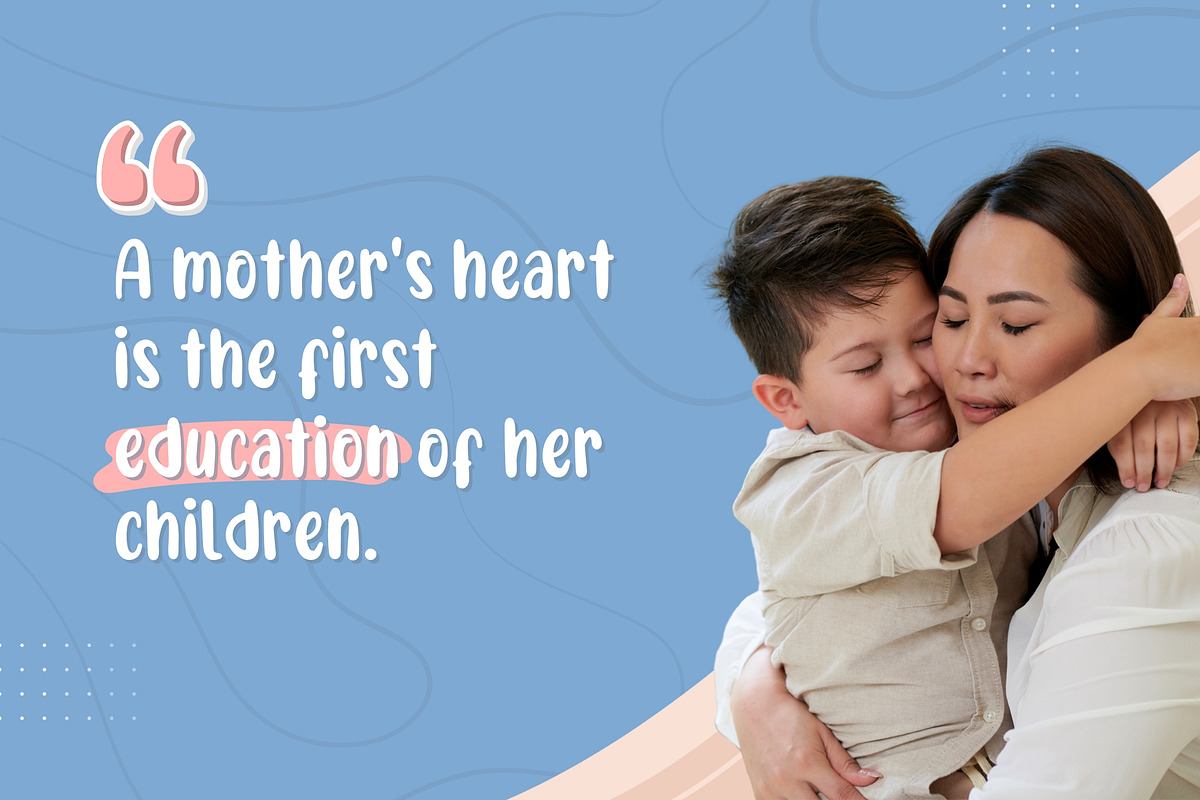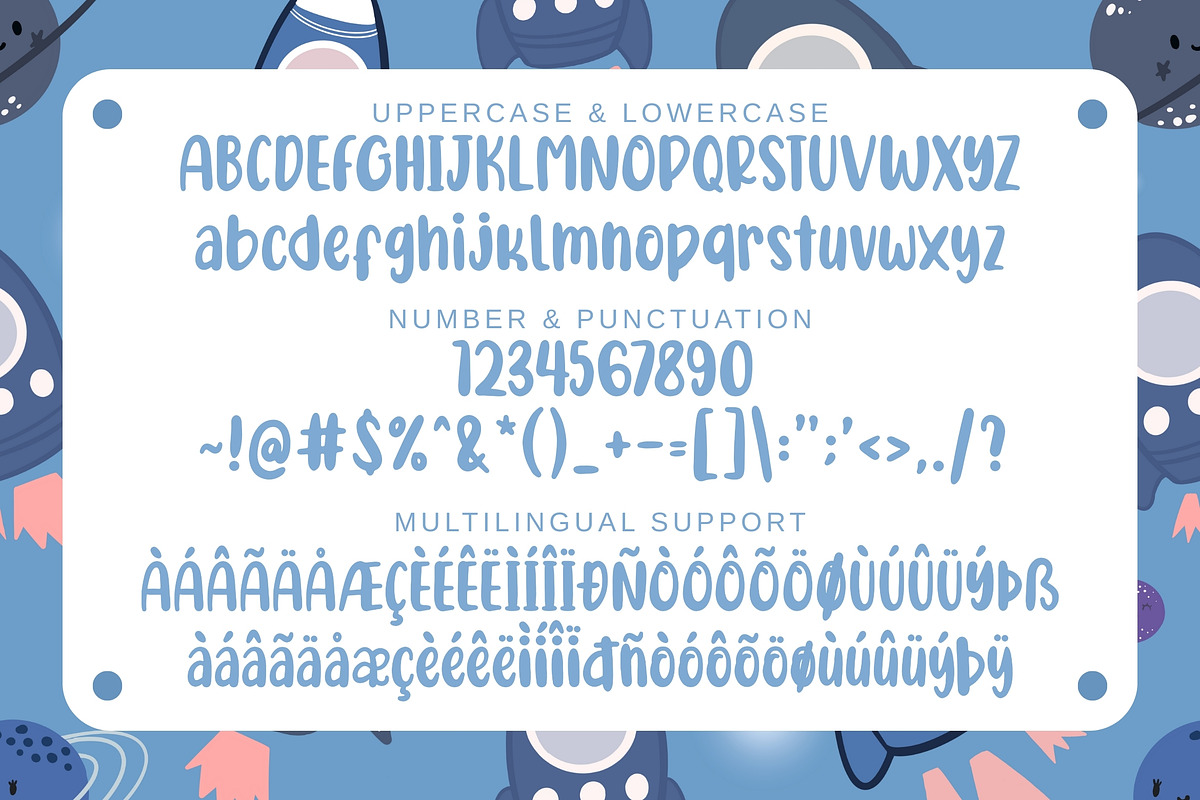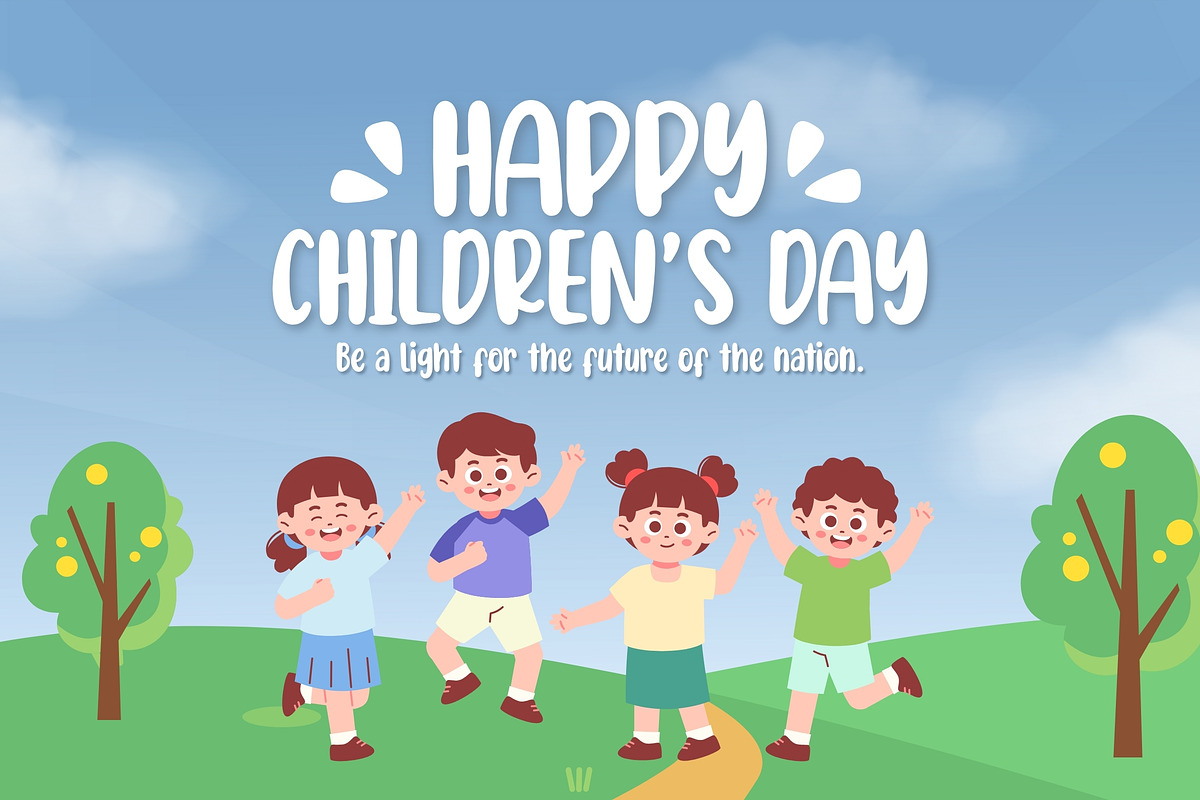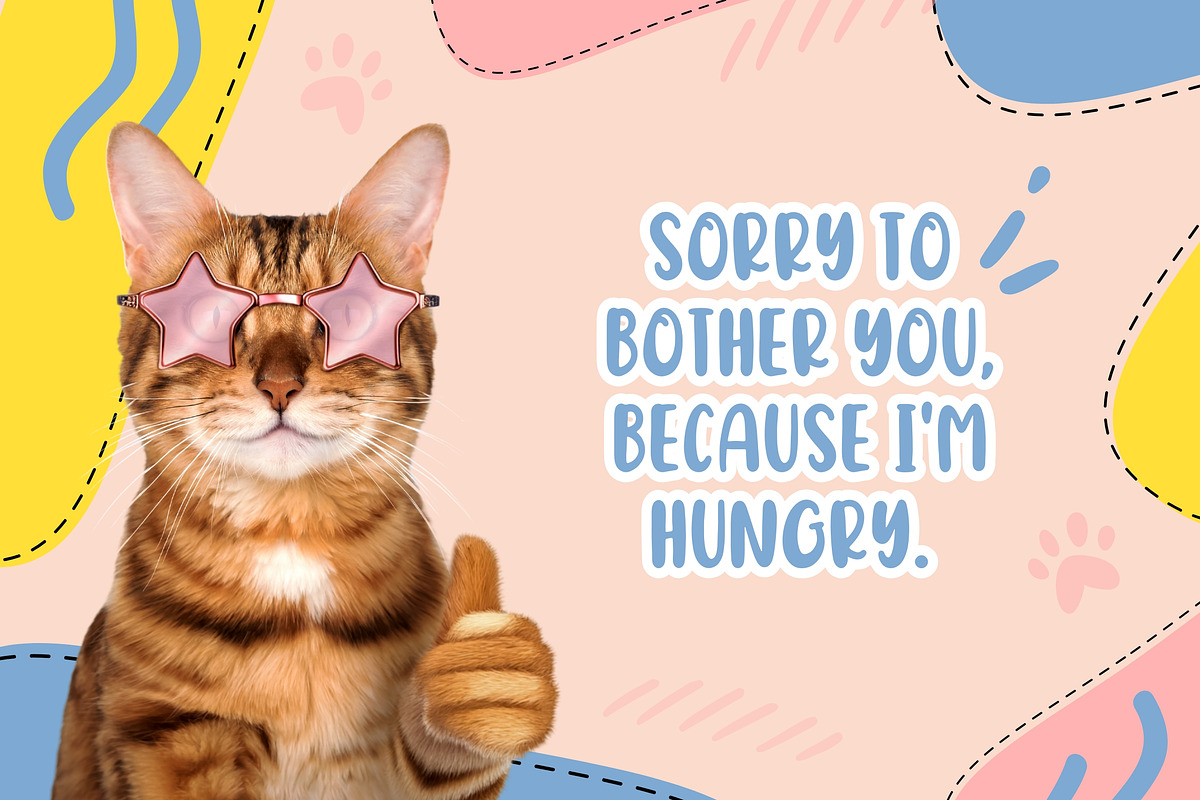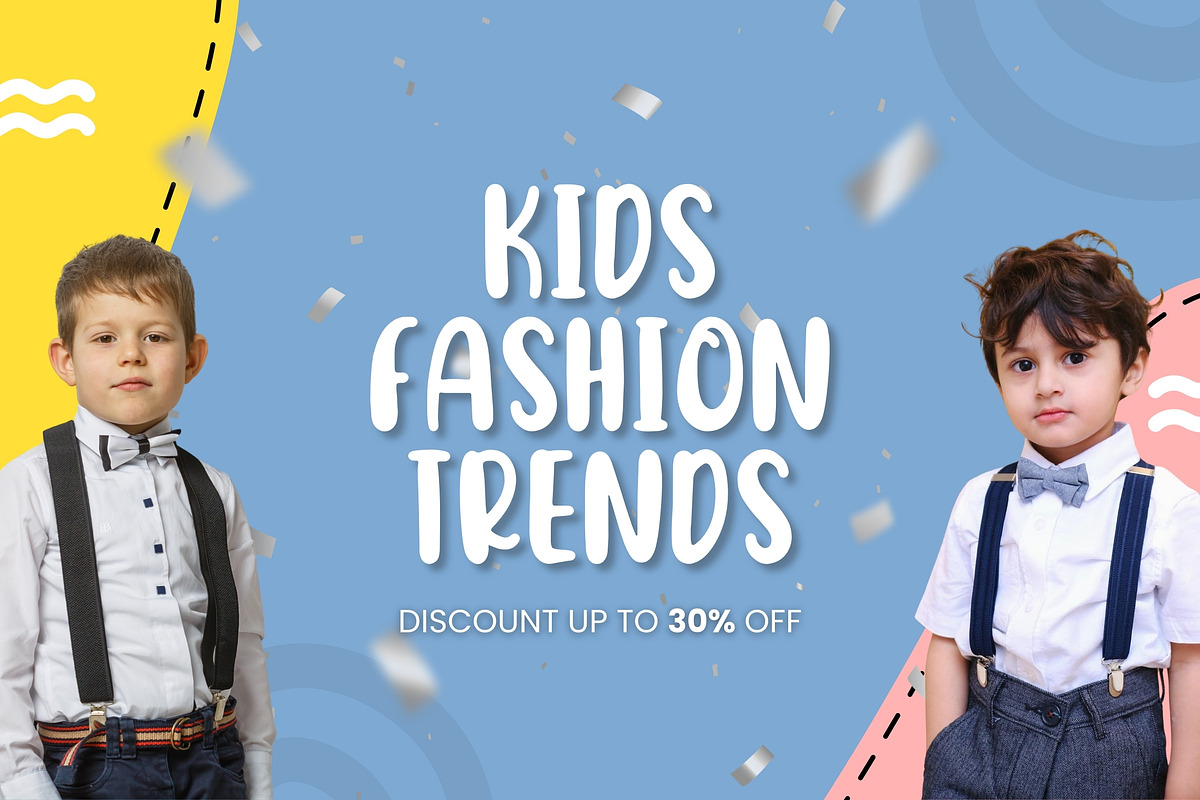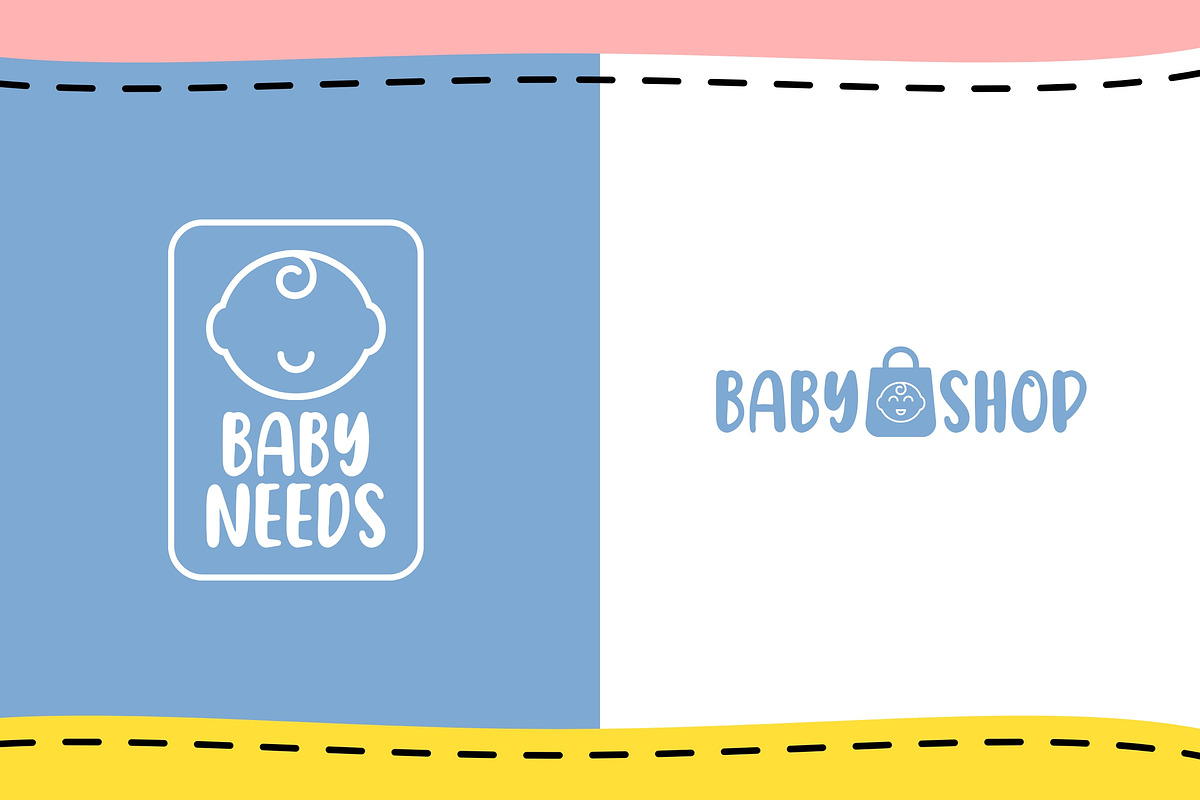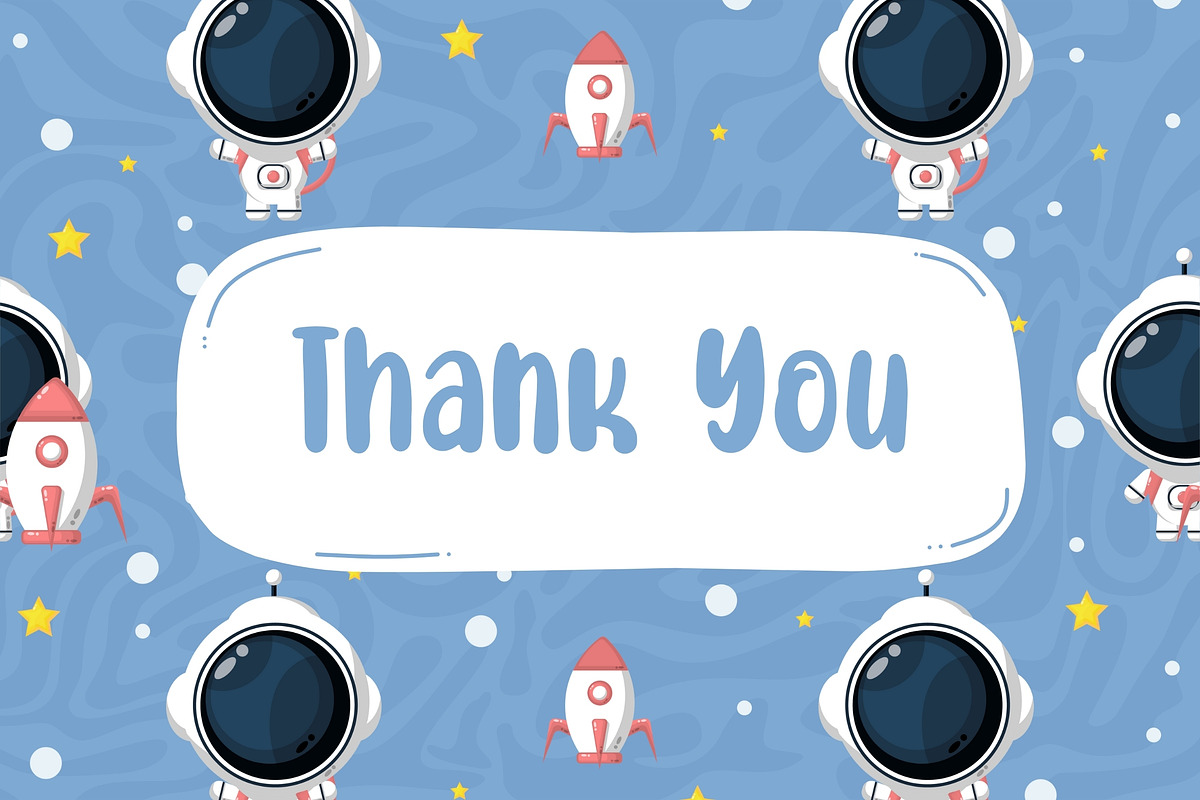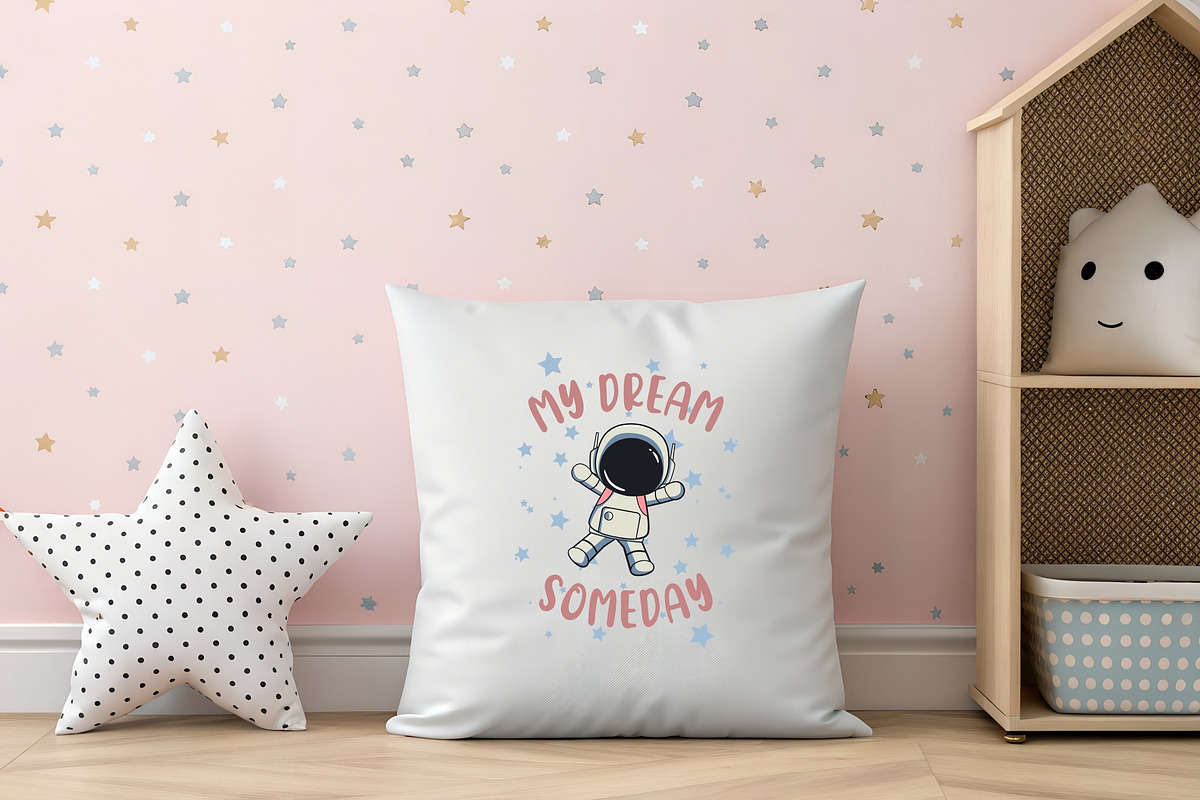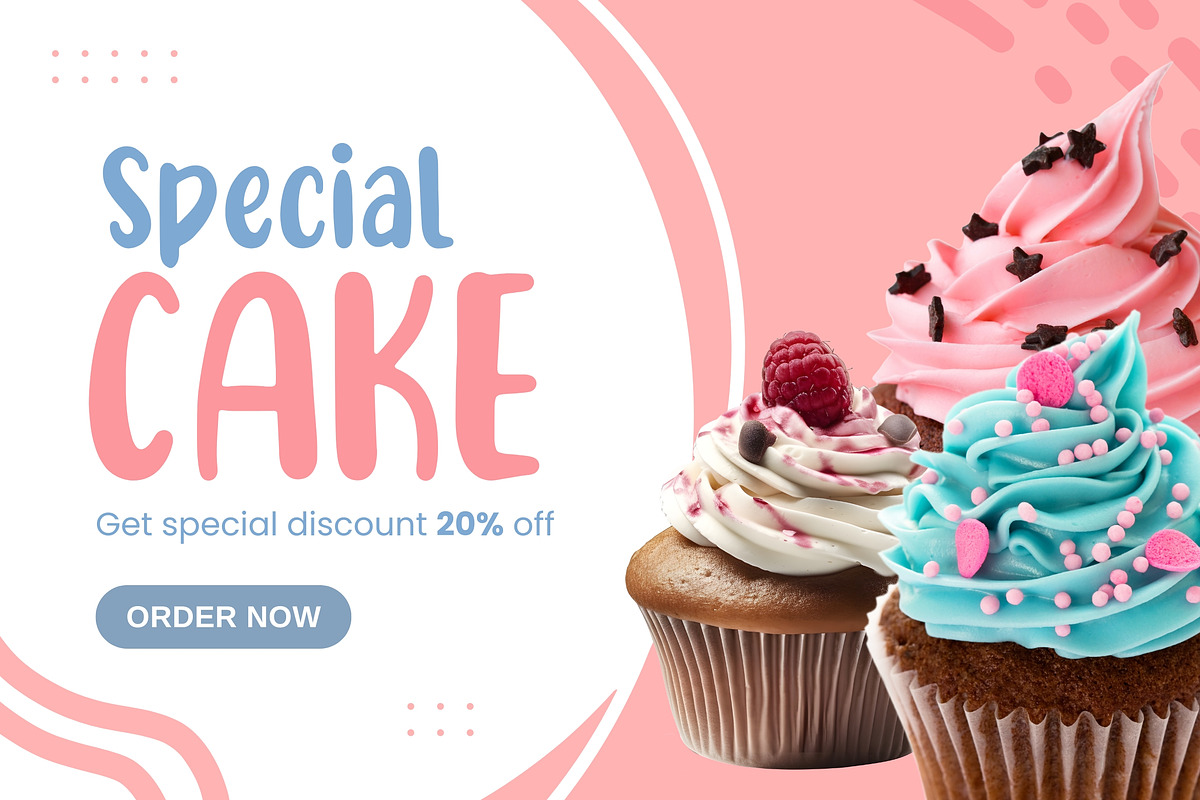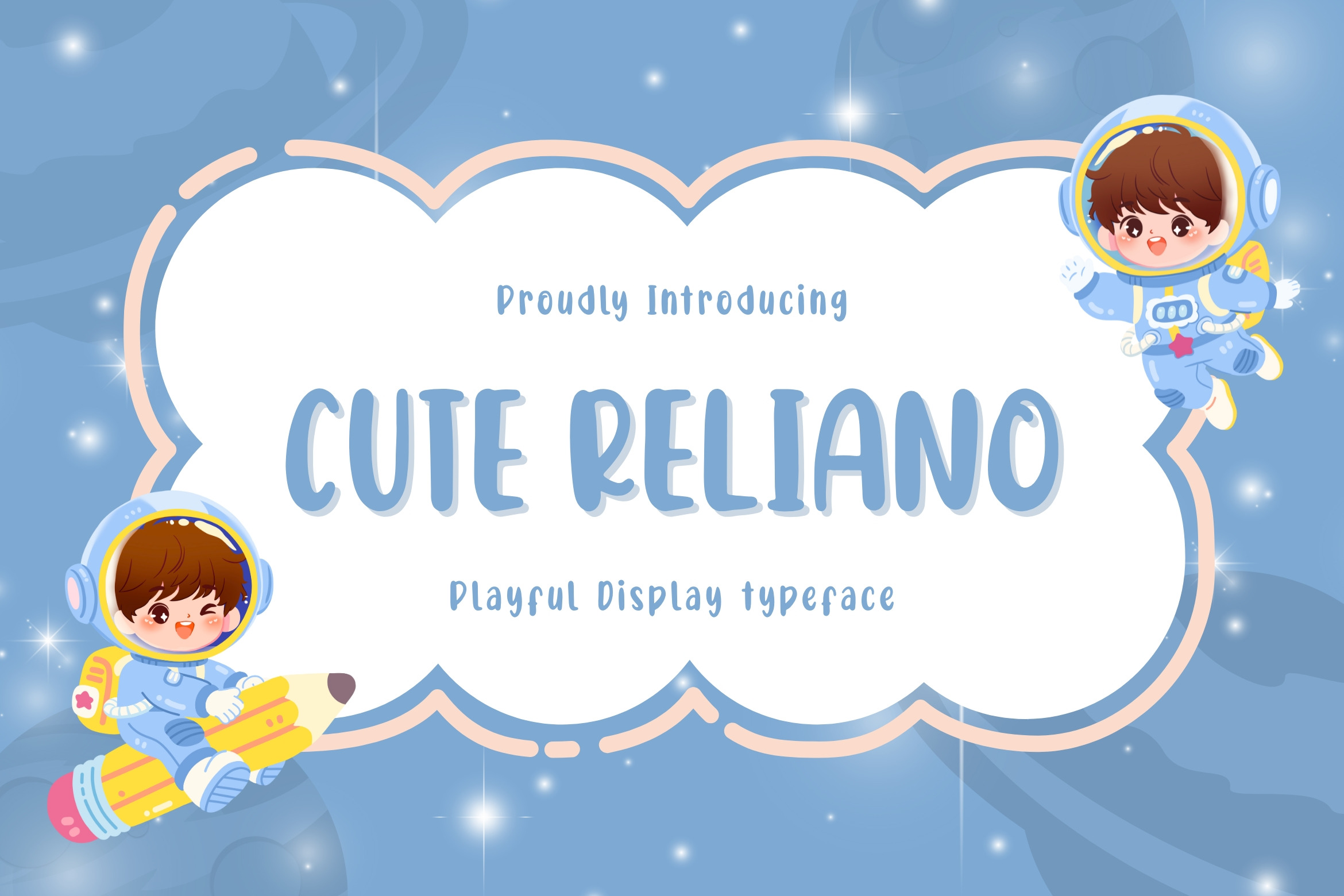
Cute Reliano – Soft & Friendly Font
Cute Reliano is a soft and friendly kids font designed to create a clean, calm, and approachable look. Featuring rounded shapes and smooth strokes, this typeface offers a perfect balance between playfulness and readability.
With its gentle character and modern feel, Cute Reliano is ideal for children-focused projects that need to look fun yet organized, cheerful yet professional.
- Children’s books and reading materials
- Worksheets, flashcards, and educational media
- School posters and learning content
- Kids-friendly branding with a clean style
- Titles, headlines, and playful text
- Complete uppercase & lowercase letters
- Soft rounded and playful style
- Multilingual character support
- Easy to read for children
- Suitable for print and digital use
Why Choose Cute Reliano? Cute Reliano helps your designs feel warm, clear, and easy to understand. Its gentle shapes make it especially suitable for educational projects, children’s content, and brands that want to communicate friendliness and trust without looking too bold or overwhelming.